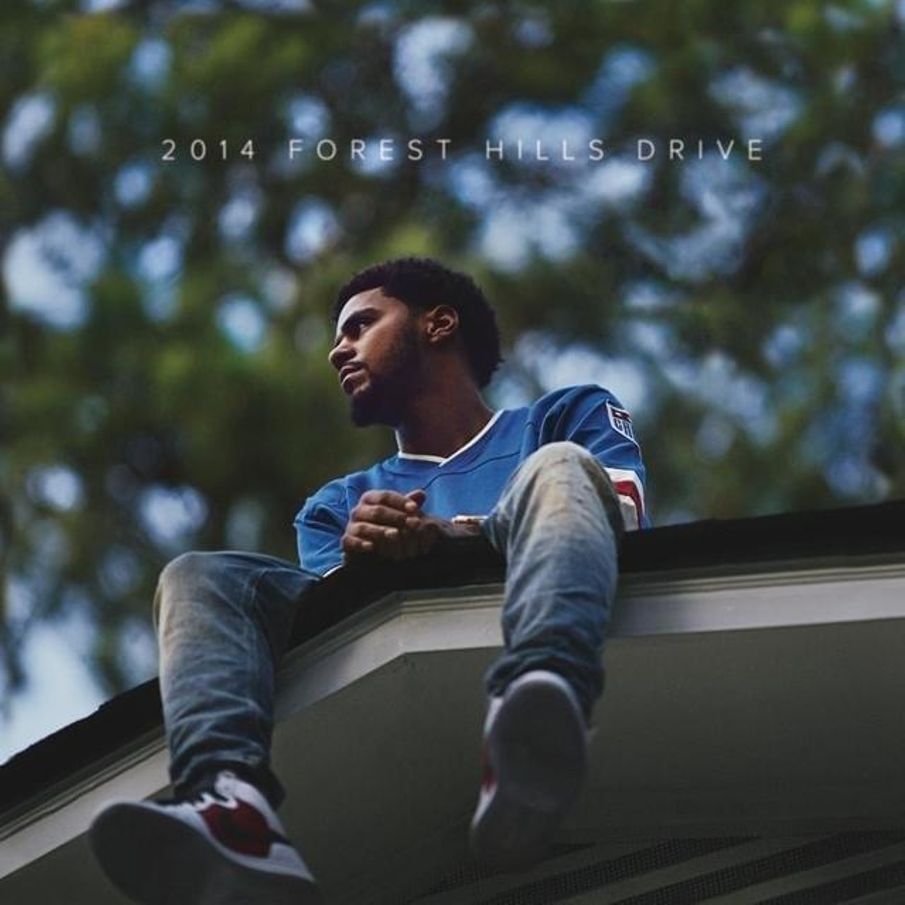
2014 Forest Hills Drive Font
Fonts in Use2014 Forest Hills Drive is the third studio album by American rapper J. Cole, released in 2014. The album is a critically acclaimed and commercially successful concept album, reflecting Cole's childhood, experiences, and growth as an artist.
Mark Simonson's Proxima Nova font family is utilized for both the album title and track listing on the back cover, presenting a fusion of traditional geometric design and modern style through its hybrid sans serif typeface.